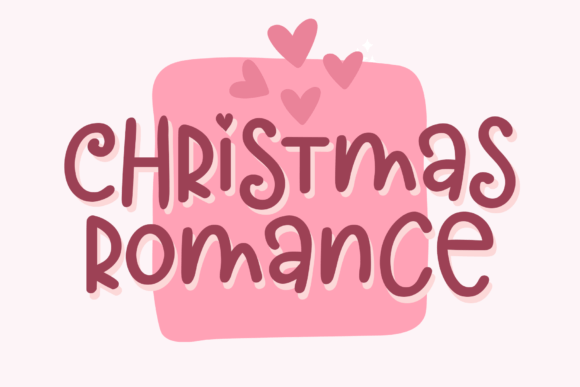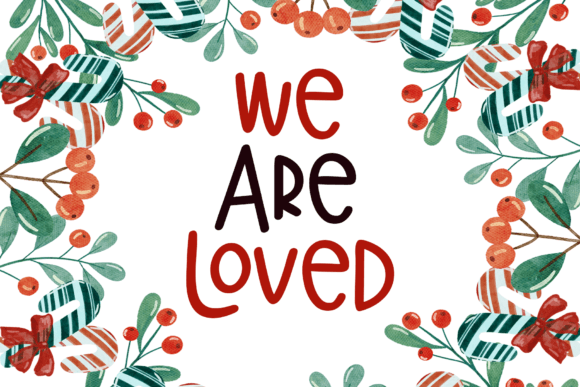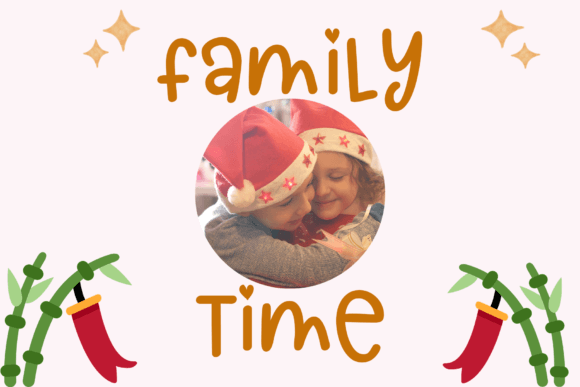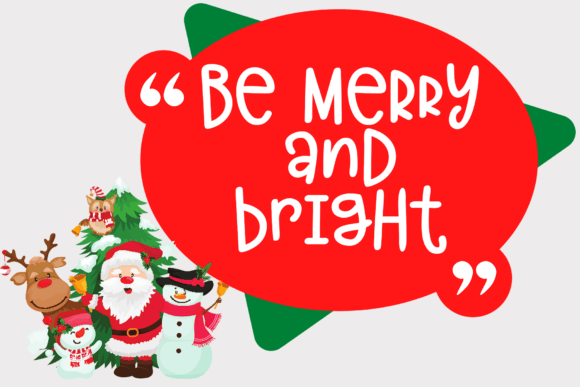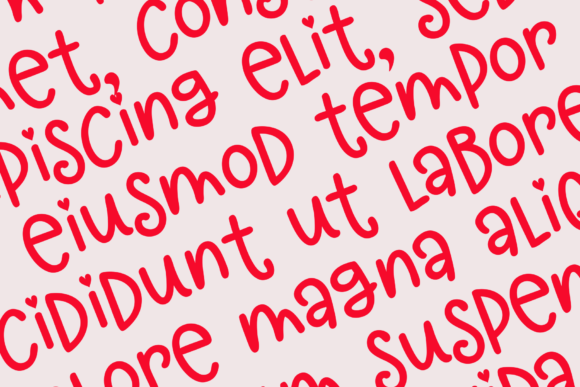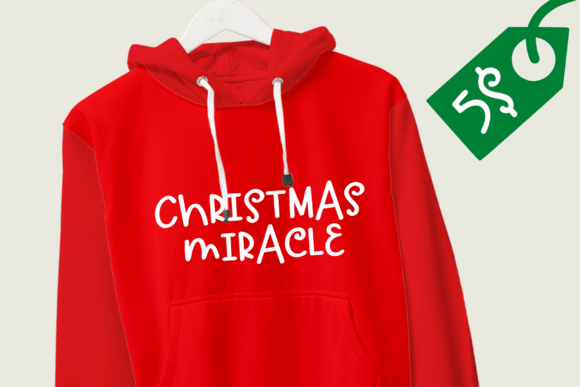
Berry Gifter Font: Elevate Your Designs with a Unique and Sweet Touch
Are you a designer or crafter looking for a font that can add a touch of uniqueness and sweetness to your designs? Look no further than the Berry Gifter font. This beautiful font features flowing letters that will give your designs a distinctive and charming look, perfect for a wide range of creative projects.
What Makes Berry Gifter Font Special?
Berry Gifter font is a one-of-a-kind typeface that boasts elegant and flowing letters. Its unique design makes it perfect for adding a personal touch to your designs, setting them apart from the rest. Whether you’re working on a logo, greeting card, package design, or any other creative project, Berry Gifter font is sure to make it stand out.
The versatility of Berry Gifter font makes it an excellent choice for a wide range of design projects. Here are some ideas to get you started:
- Logos: Create a memorable and eye-catching logo for your business or brand with Berry Gifter font.
- Greeting Cards: Add a personal touch to your greeting cards, making them extra special for any occasion.
- Package Design: Elevate your product packaging with a unique and stylish font that reflects your brand’s personality.
- Brand Identity: Establish a consistent brand image with Berry Gifter font, perfect for use across various marketing materials.
- Craft Design: Add a touch of elegance to your craft designs, such as handmade products or DIY projects.
- DIY Projects: Make your DIY projects, such as scrapbooking or journaling, more special with Berry Gifter font.
- Book Titles: Create eye-catching book titles or headings with Berry Gifter font, perfect for authors and publishers.
- Wedding Invitations: Make your wedding invitations or stationery extra special with this beautiful font.
- Packaging: Use Berry Gifter font to create stunning packaging for your products, making them stand out on store shelves.
Why Choose Berry Gifter Font?
There are many reasons why Berry Gifter font stands out from the rest. Here are a few:
- Unique Design: Berry Gifter font features a one-of-a-kind design that will set your designs apart from others.
- Elegant and Flowing Letters: The font’s elegant and flowing letters add a touch of sophistication and charm to any design.
- Versatile: Berry Gifter font can be used for a wide range of design projects, making it a great addition to any designer’s toolkit.
Tips for Using Berry Gifter Font
Here are a few tips for getting the most out of Berry Gifter font:
- Experiment with Sizes: Try out different font sizes to see how Berry Gifter font looks in various contexts.
- Pair with Other Fonts: Experiment with pairing Berry Gifter font with other fonts to create unique and interesting combinations.
- Use for Headings: Use Berry Gifter font for headings or titles to add a touch of elegance and sophistication.
- Make it Your Own: Don’t be afraid to get creative and make Berry Gifter font your own by experimenting with different colors, textures, and effects.
| Font Name | Berry Gifter Font |
| Author | Wildan Type |
In conclusion, Berry Gifter font is a unique and versatile typeface that can add a touch of sweetness and elegance to any design project. Its flowing letters and elegant design make it perfect for a wide range of creative projects, from logos and greeting cards to package design and DIY projects. With its ease of use and flexibility, Berry Gifter font is a great addition to any designer’s toolkit.